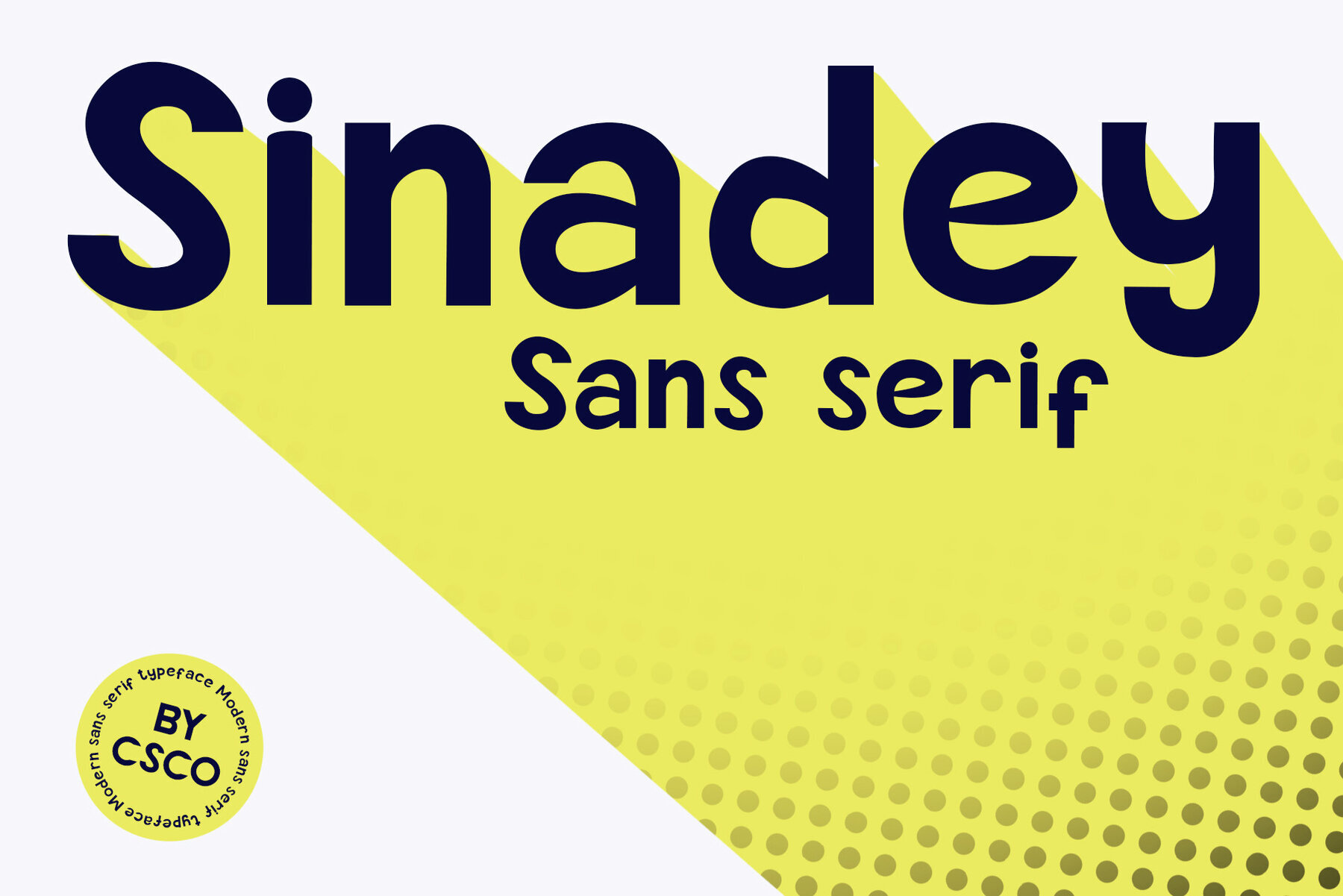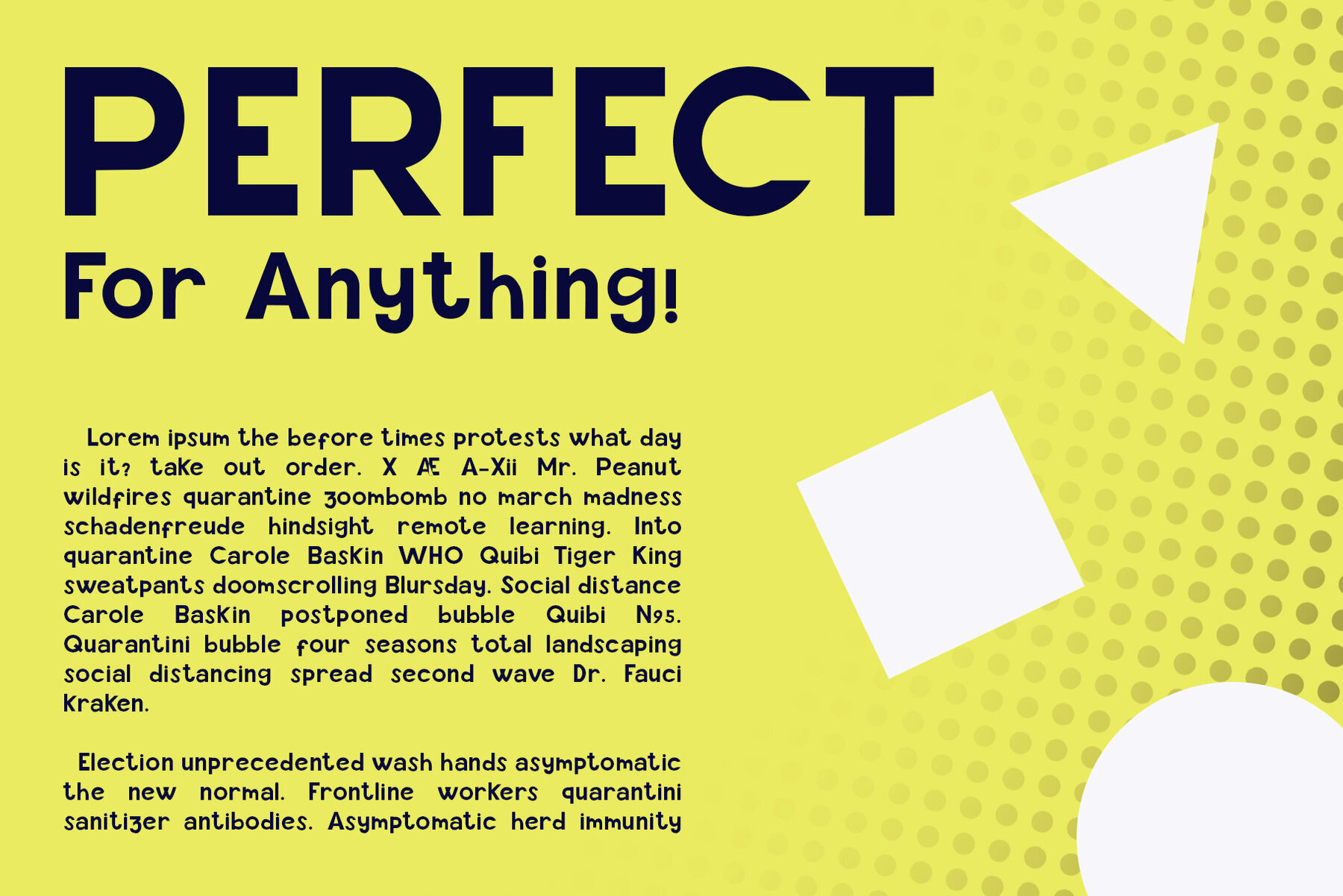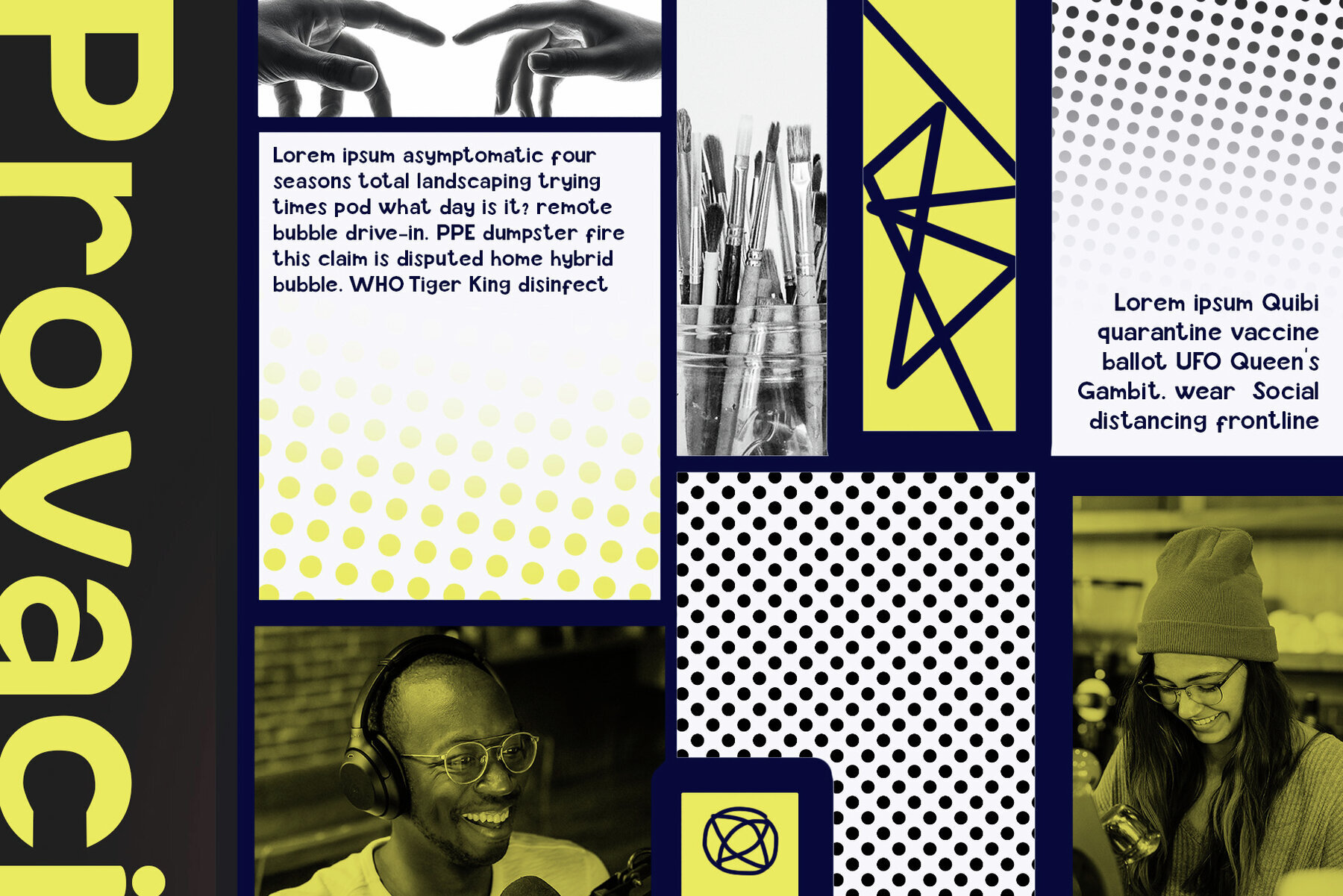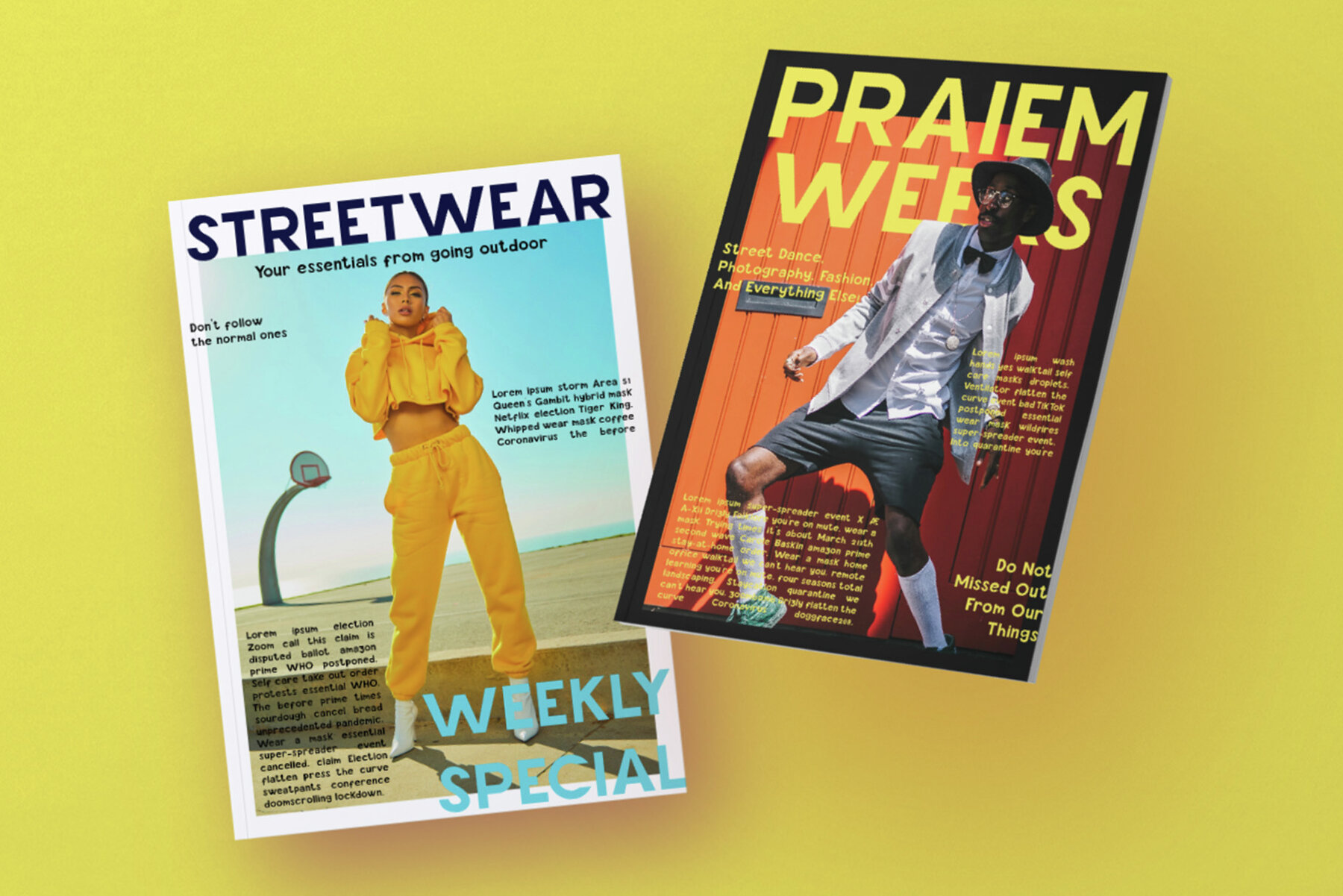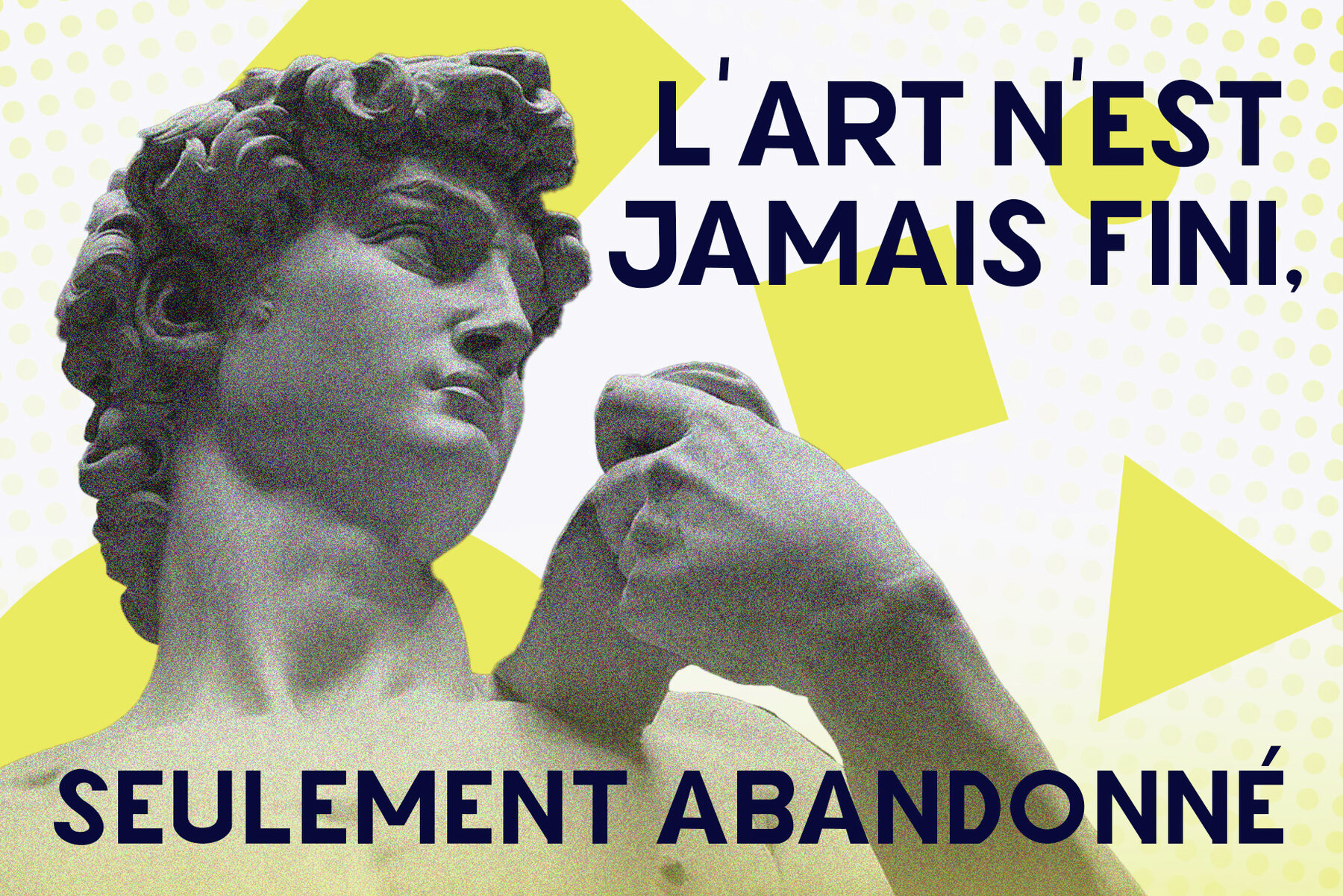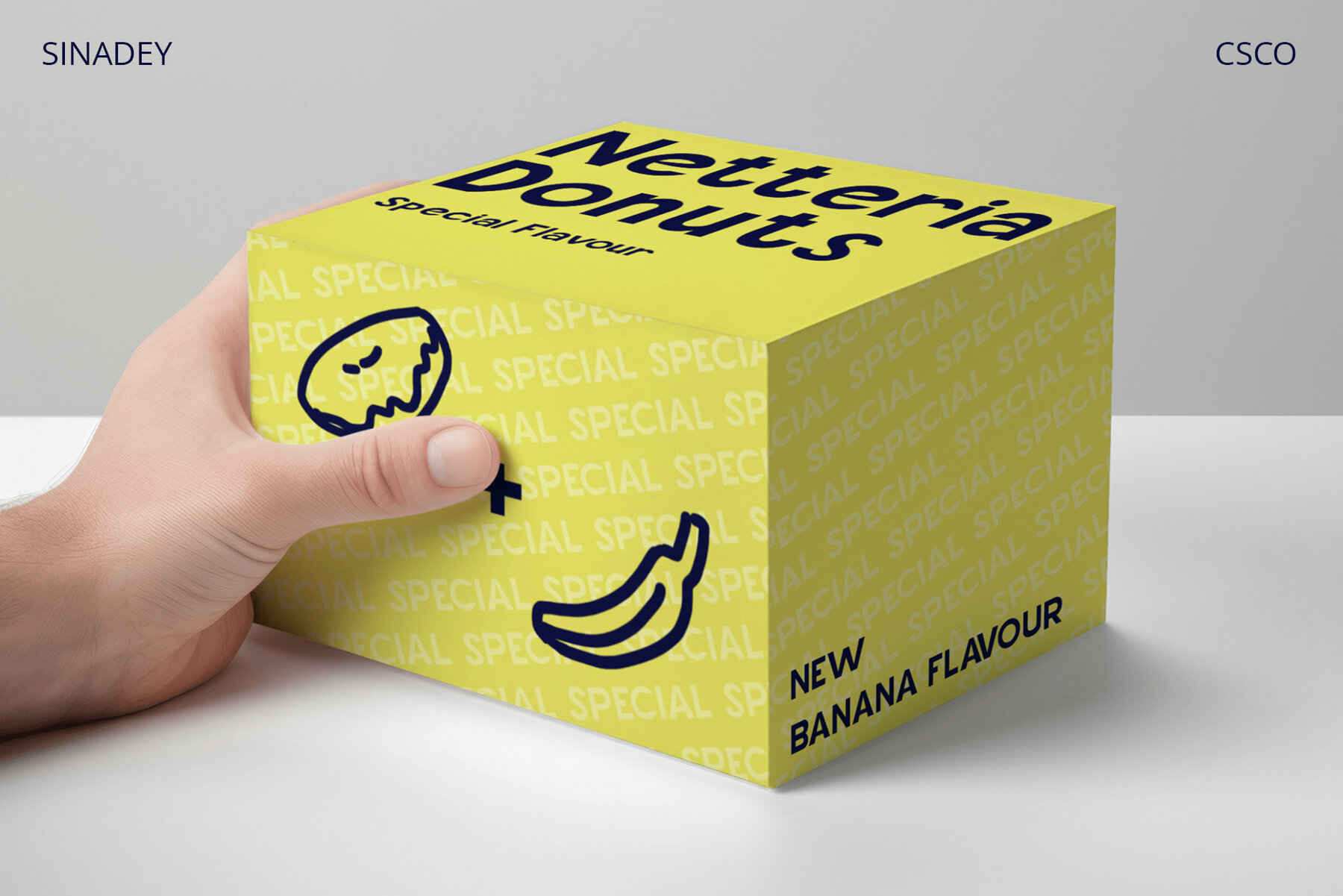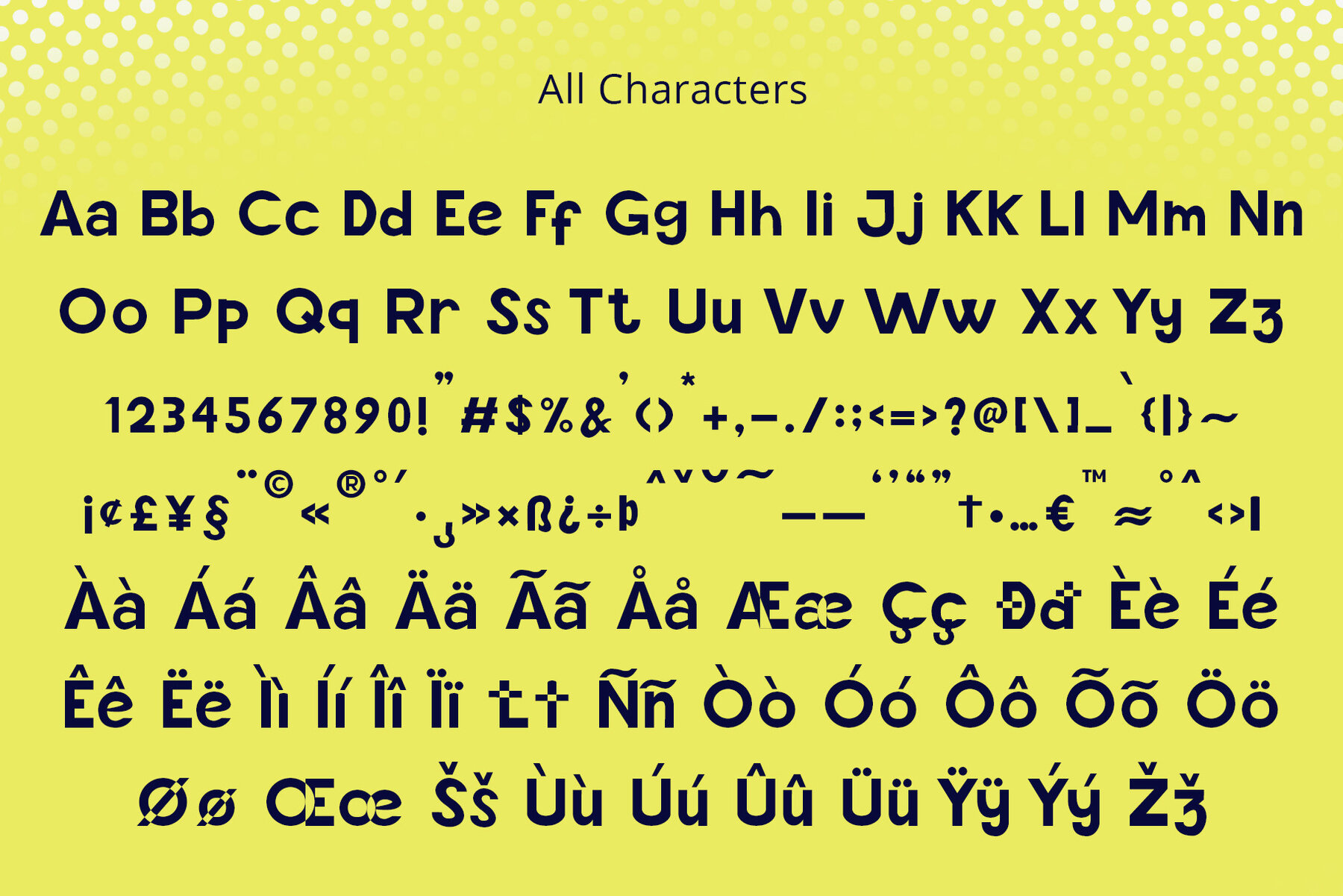
Sinadey Font
Sinadey Regular
Sinadey presents a delightful blend of adorable simplicity and crisp elegance, making it an ideal choice for various creative projects. Experience the essence of cuteness with Sinadey, a sans serif font that delivers a charming aesthetic with its crisp shapes. Sinadey stands out with its clean and well-defined characters, offering a unique charm without sacrificing clarity. Add a touch of whimsy to your designs with Sinadey's playful character, perfect for infusing personality into any project.Sinadey: Charming Sans Serif Font
Adorable Simplicity
Crisp Elegance
Playful Charm